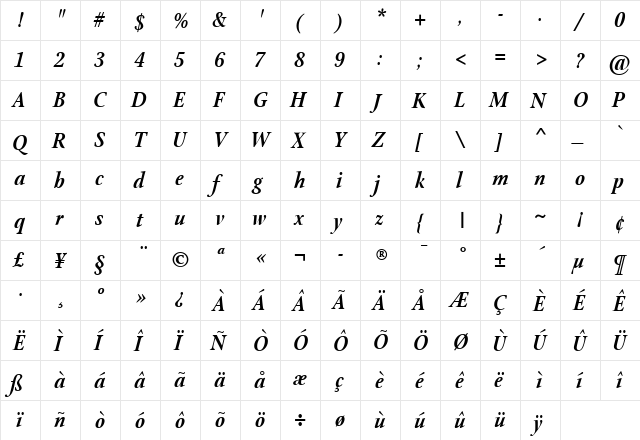
StonePrint Regular Font Preview
StonePrint Regular
StonePrint Regular Font Details
Design Context for StonePrint Typeface
StonePrint is a composed and adaptable typeface that performs quietly and consistently across a wide range of design contexts.